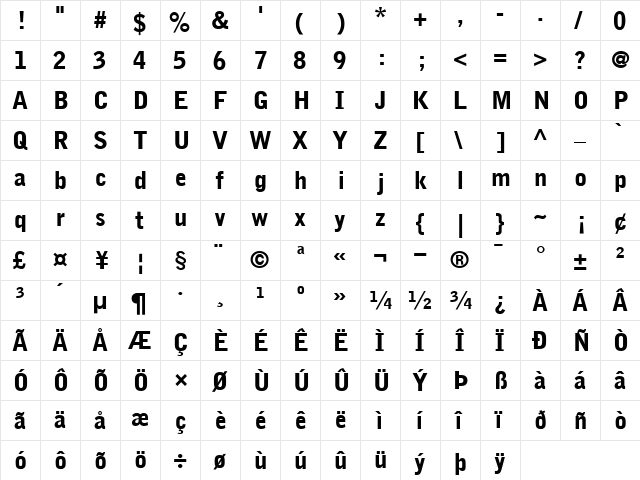
BellGothic-Black Black
Design Context for BellGothic-Black Typeface
BellGothic-Black has the quiet confidence of well-executed sans-serif typography: versatile, unobtrusive, and dependable at any size.
Font Pairing: Works well alongside a characterful serif or display font that can carry the expressive load while BellGothic-Black handles the functional copy.
Pro Tip: Pair BellGothic-Black with a display or serif font for headlines — its neutral character makes it an excellent supporting player in complex typographic systems.